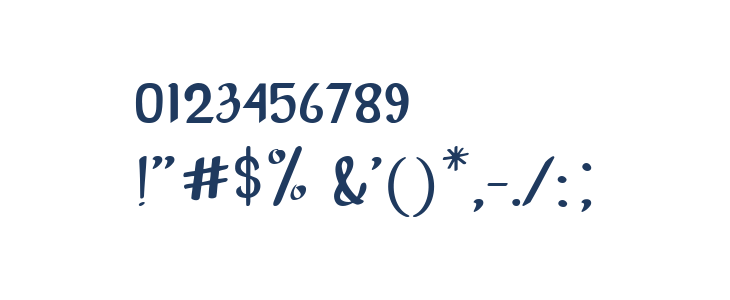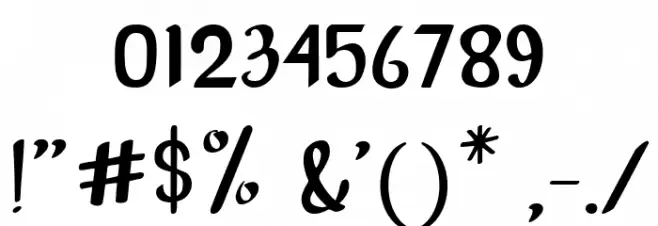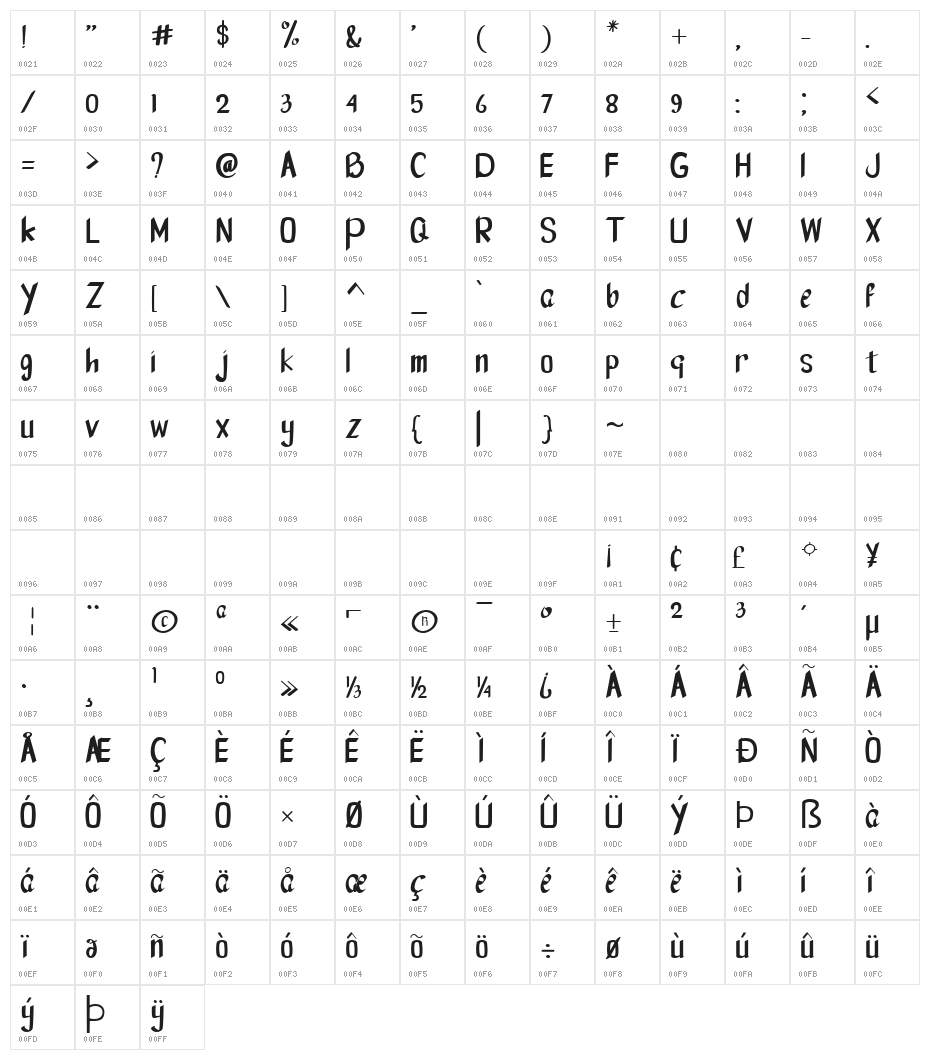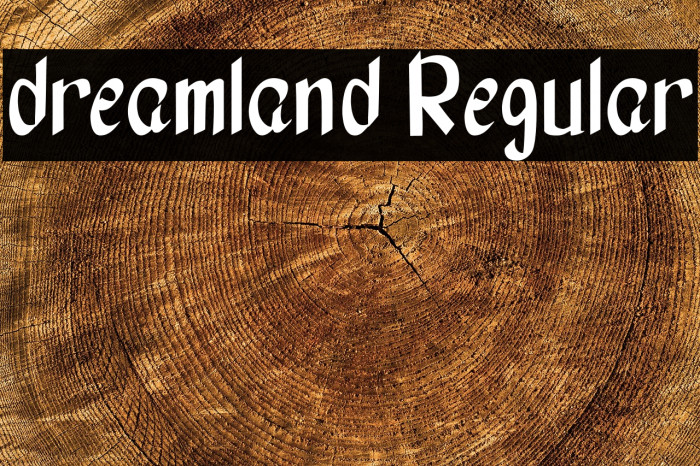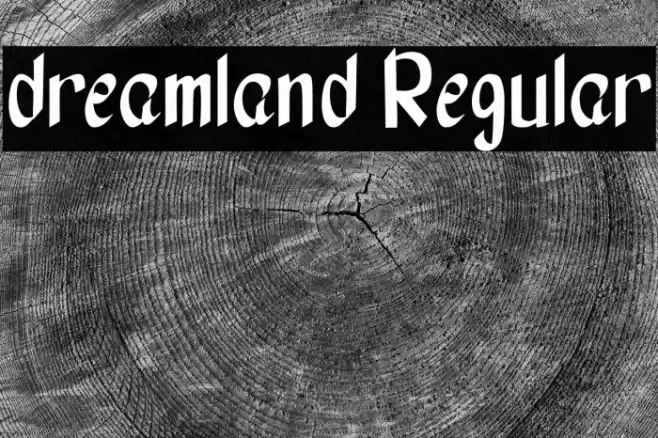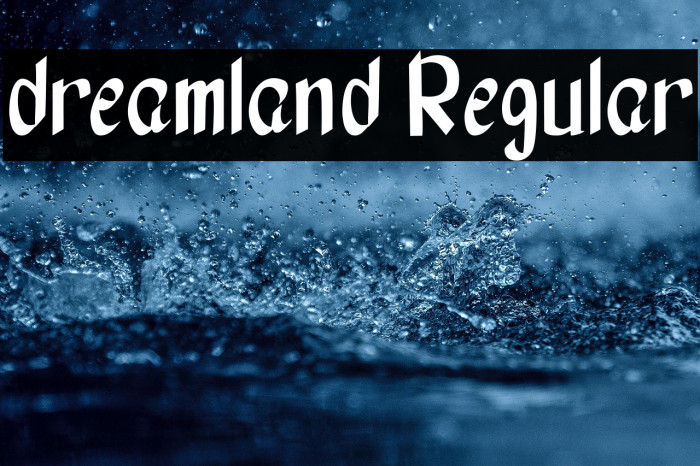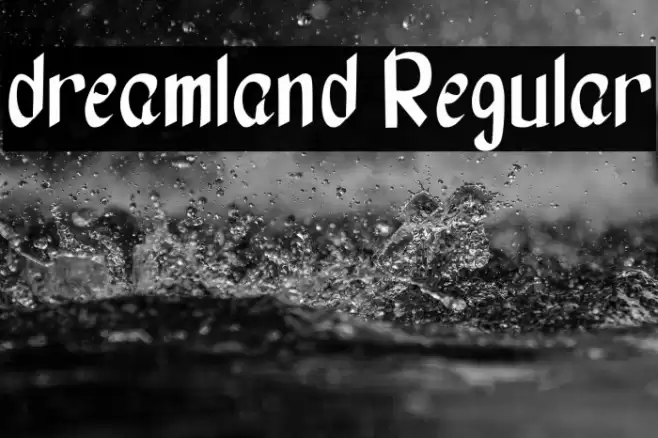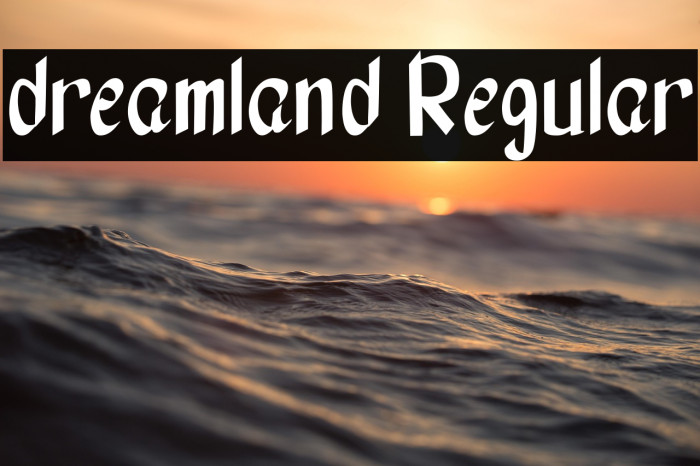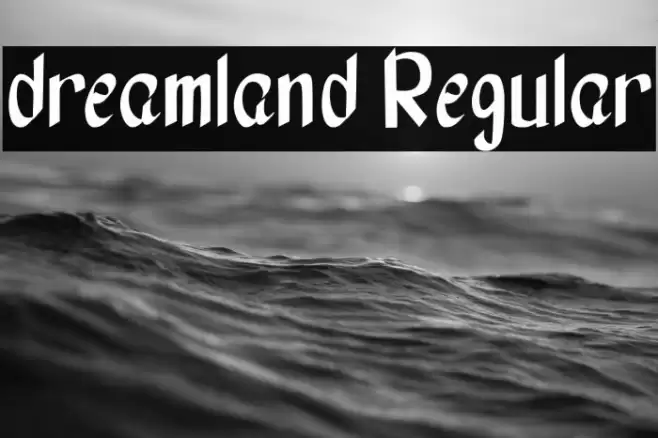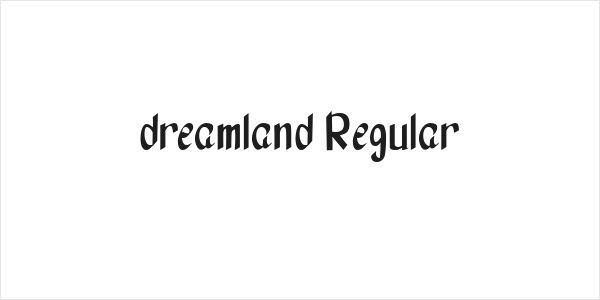
dreamland Regular Font
dreamland Regular Description
This font features a unique and playful design with a whimsical touch. The characters are bold and have a slightly irregular shape, giving them a hand-drawn appearance. The uppercase letters are tall and narrow, while the lowercase letters maintain a consistent flow with subtle curves. The numbers are distinct and easy to read, matching the playful style of the letters. Special characters are creatively designed, adding to the overall charm. This font is suitable for projects that require a fun and engaging aesthetic.
| Overall Style | Whimsical, Playful |